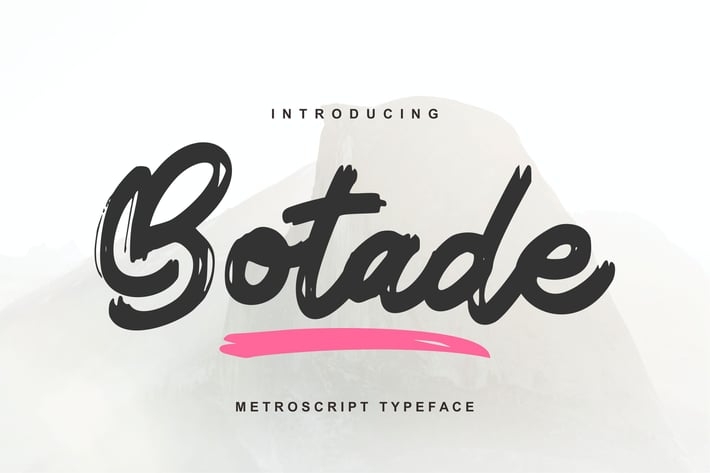
Botade | Metroscript Typeface Font
Botade | Metroscript Typeface Font with a calligraphy style, So beautiful on invitation like greeting cards, branding materials, business cards, quotes, posters, and more!